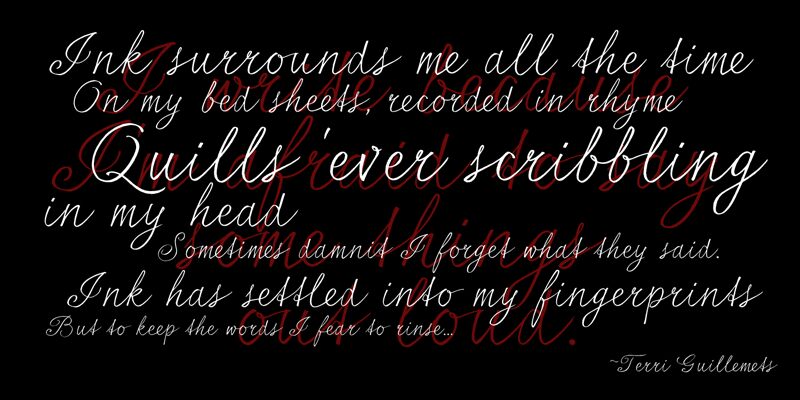
Serious Sally Broad by JOEBOB graphics is a free calligraphic script with sweeping capitals, fine hairlines, and emphatic changes in stroke width. Long loops and lively joins give the lettering a formal, expansive silhouette.
A boutique fashion label or upscale beauty brand could use it for wordmarks and packaging, where the flourished forms can echo ribbons, signatures, or ornamental line art. The same elegant movement suits wedding invitations and magazine covers, but branding is its clearest role because the large capitals turn a name into a recognizable mark through their dramatic opening strokes and loops.